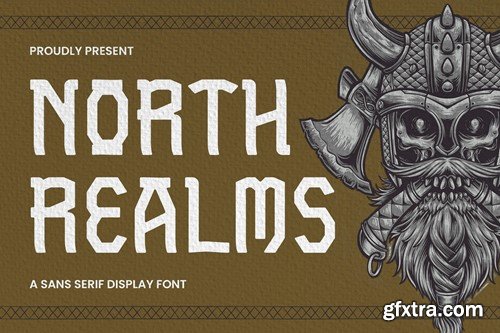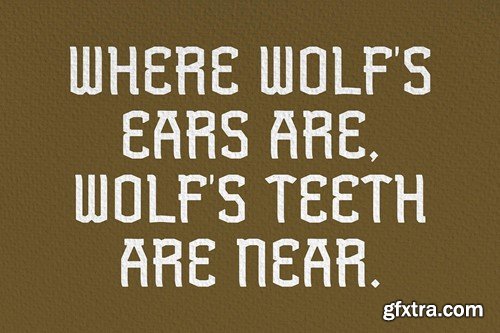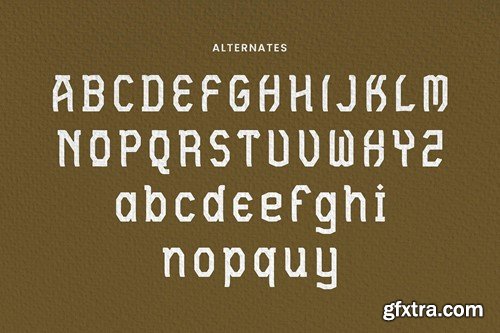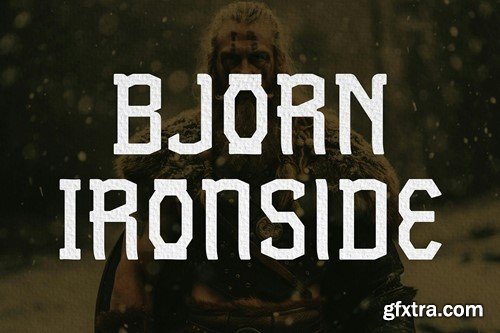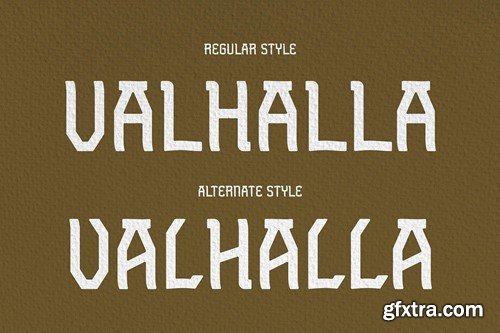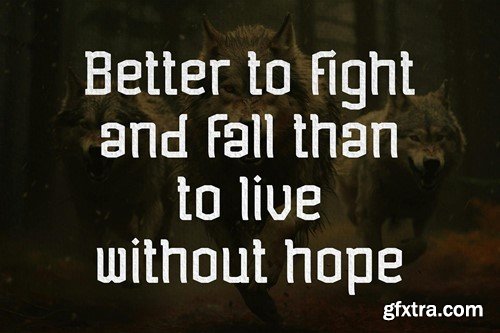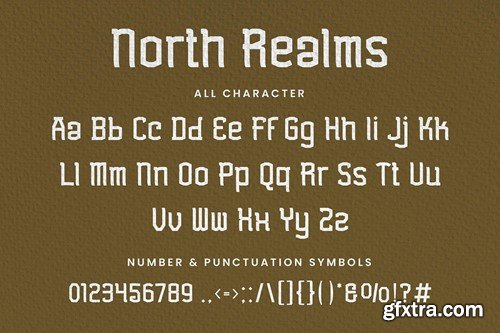
North Realms - Sans Serif Font
North Realms - Sans Serif Font contains a lowercase, uppercase, symbol, and also supports multi-language. There’s a lot of ligature in this font. North Realms - Sans Serif Font also comes with ligatures, stylistic alternates, and many more. this font is suitable for fashion, branding, catalog, and other designs that you want. File Includes :